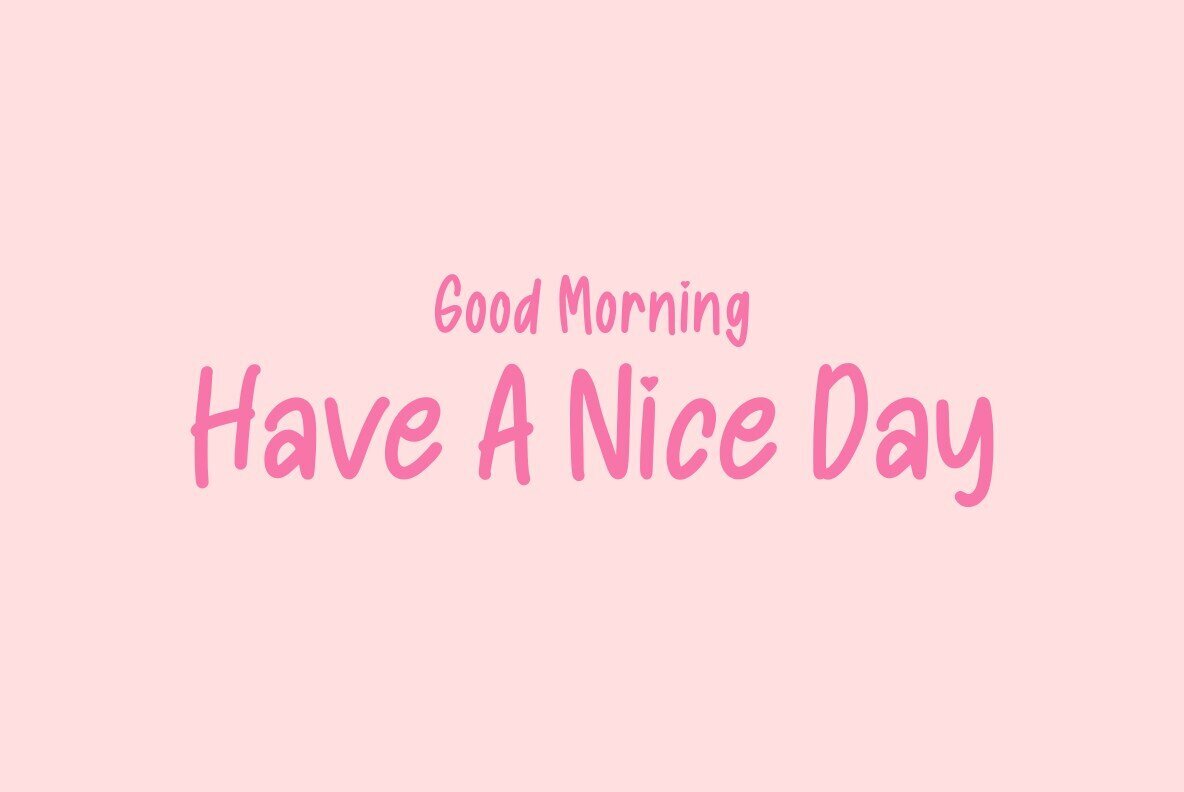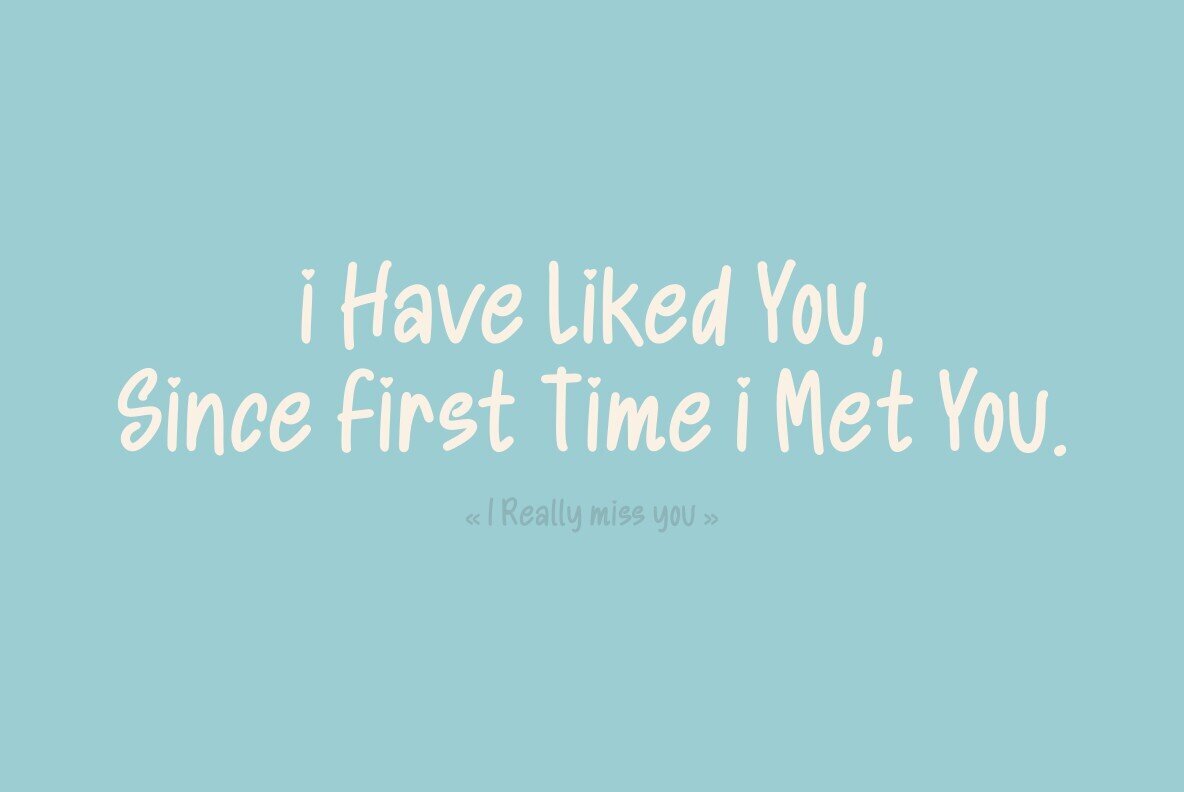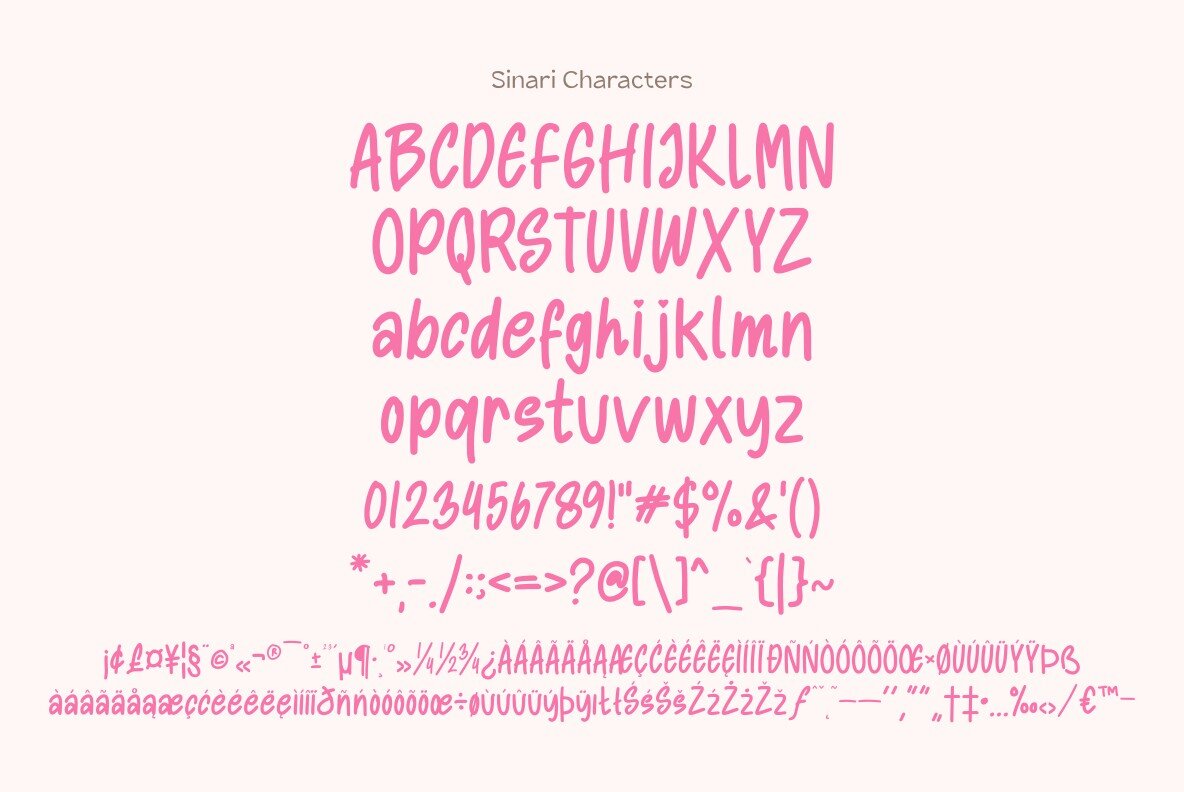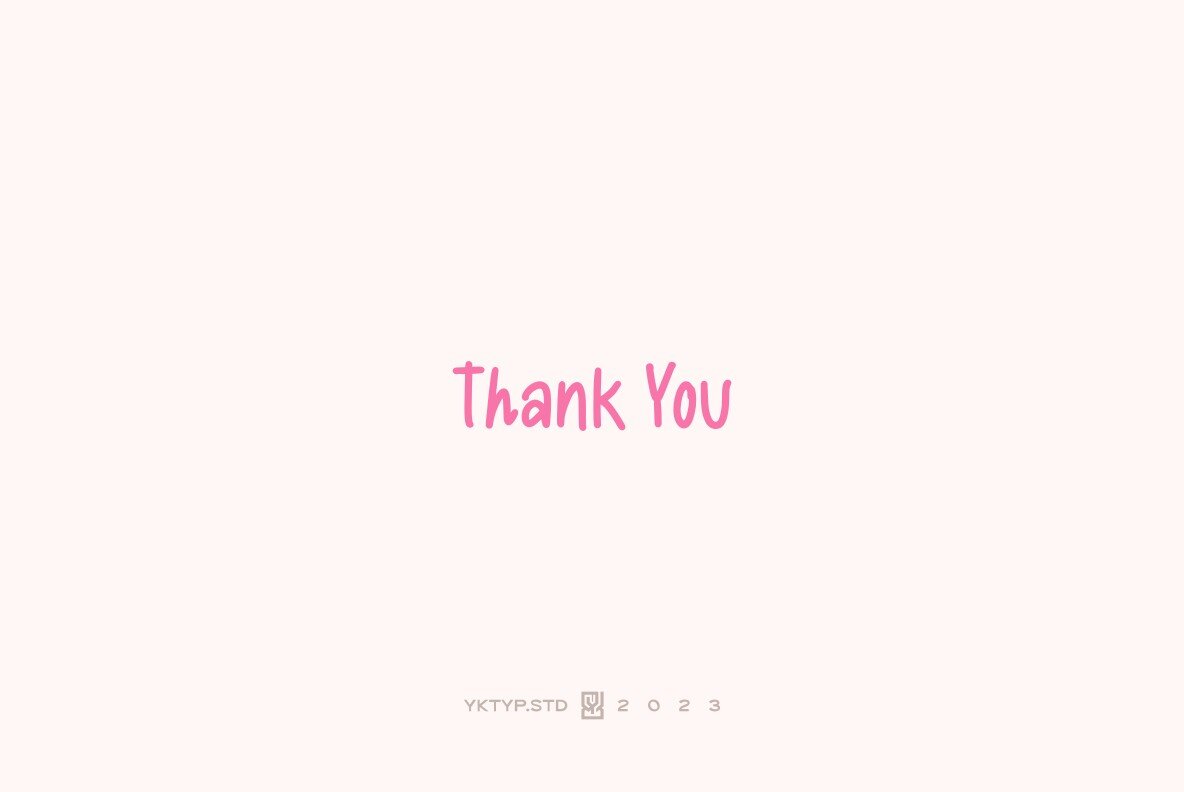
Sinari Font
Sinari Regular
"Sinari" brings a cheerful and joyful touch to your projects. Designed with love, this font effortlessly complements relaxed themes and adds a whimsical flair.Sinari: A Cute Handwritten Font Full of Joy